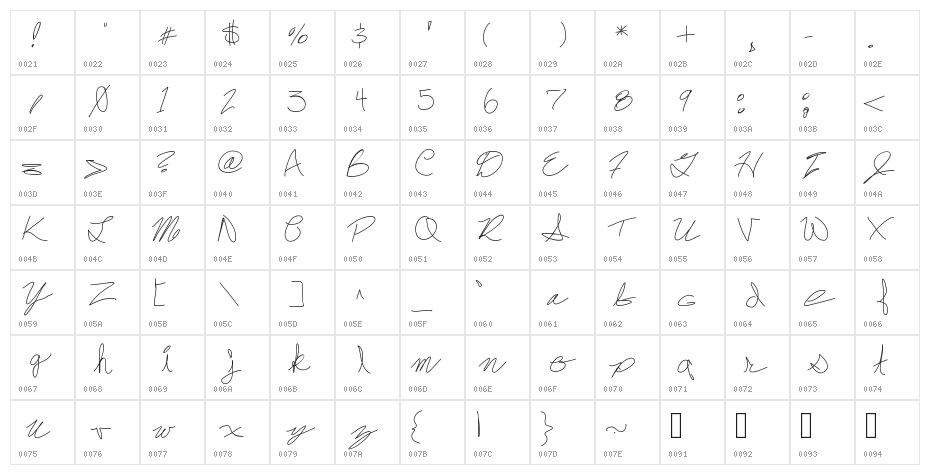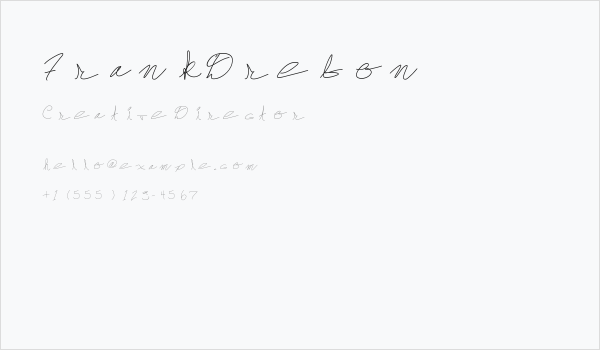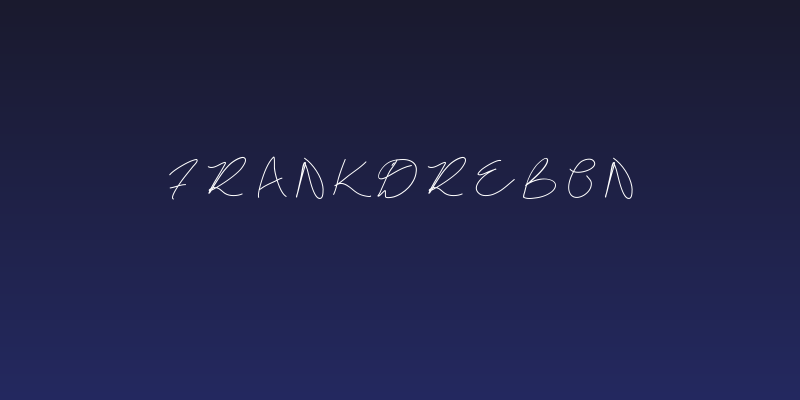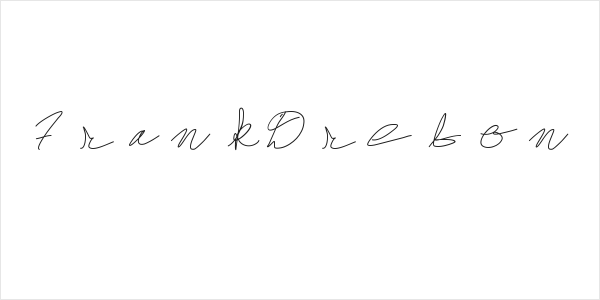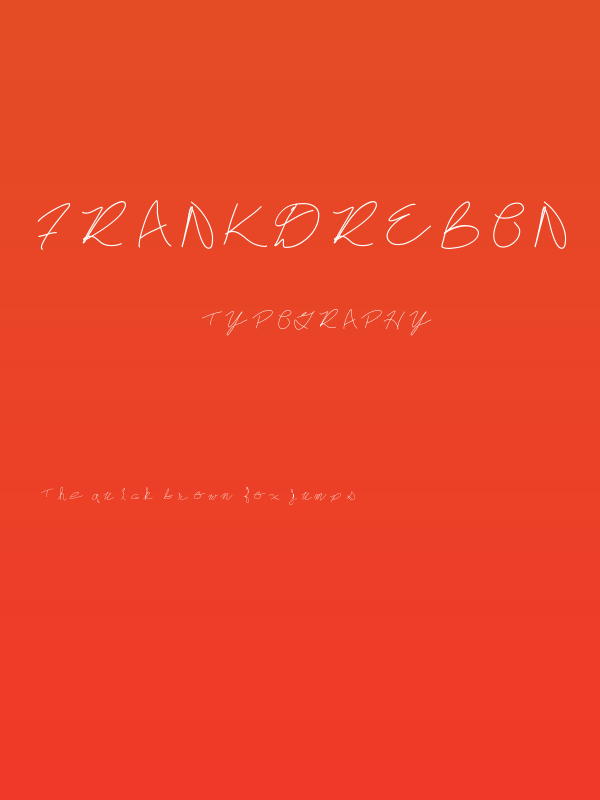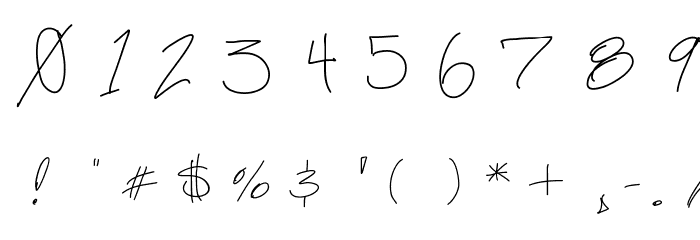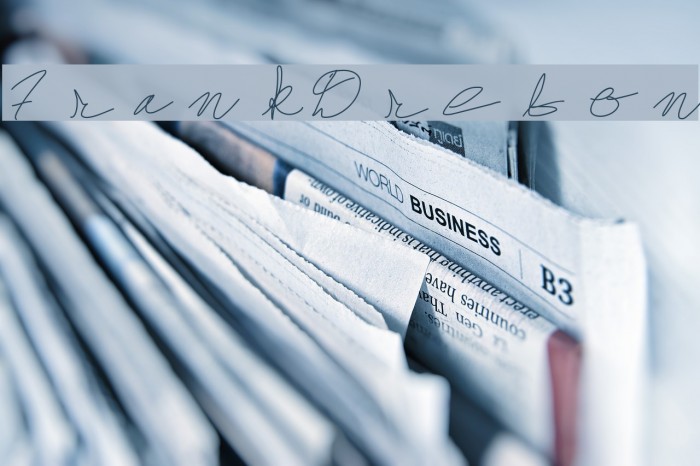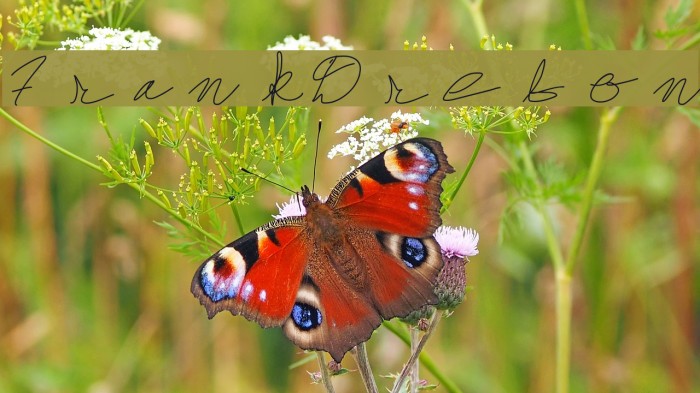
FrankDrebon Font
FrankDrebon Description
This font exhibits a fluid, handwritten style with a casual and personal touch. The letters are connected in a cursive manner, giving it an elegant and flowing appearance. The strokes are thin and consistent, providing a delicate and airy feel. The uppercase letters are slightly more elaborate, with some featuring loops and swirls, while the lowercase letters maintain a simpler, more straightforward design. The numerals and special characters follow the same cursive style, ensuring uniformity across the font. This font is ideal for projects that require a personal, handwritten look, such as invitations, greeting cards, or personal branding materials. Its unique style makes it stand out, adding a touch of sophistication and charm to any design.
| Use Case | Logos, Invitations, Greeting Cards |
| Proposed Projects | Ideal for invitations, greeting cards, personal branding, and decorative projects. |